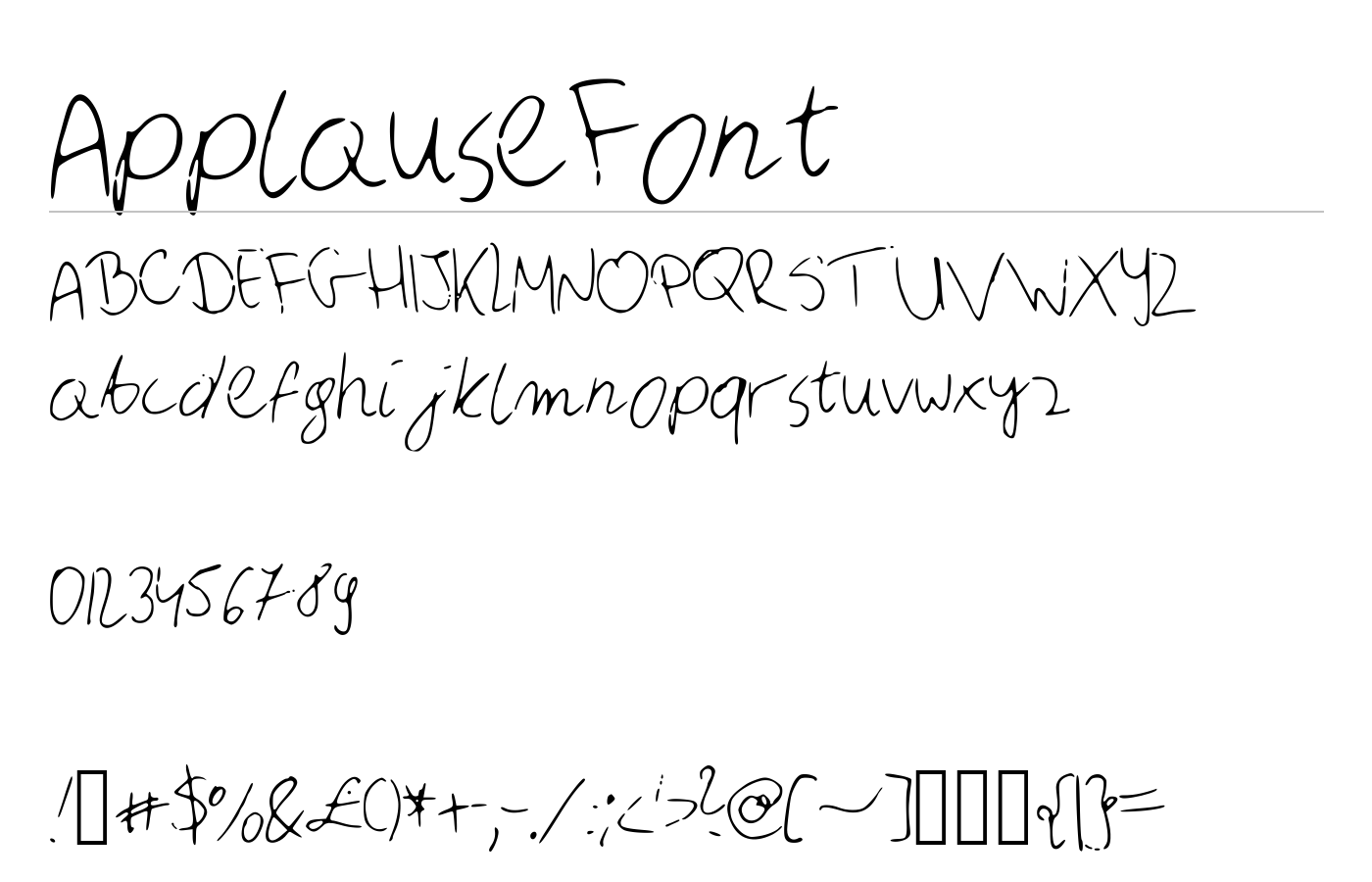
ApplauseFont is a casual, hand-drawn script-style font with a loose, playful feel. Its light weight and irregular strokes give it a personal and approachable character, making it perfect for informal designs, creative projects, and friendly branding. This font works well for invitations, social media graphics, and any design that benefits from a warm, handwritten touch.
ApplauseFont
About ApplauseFont